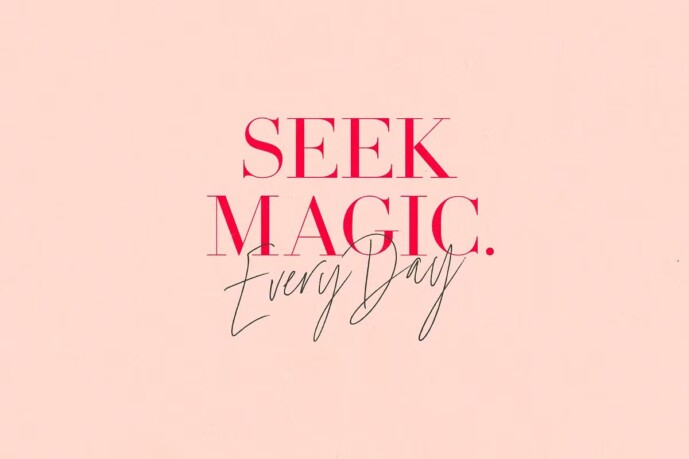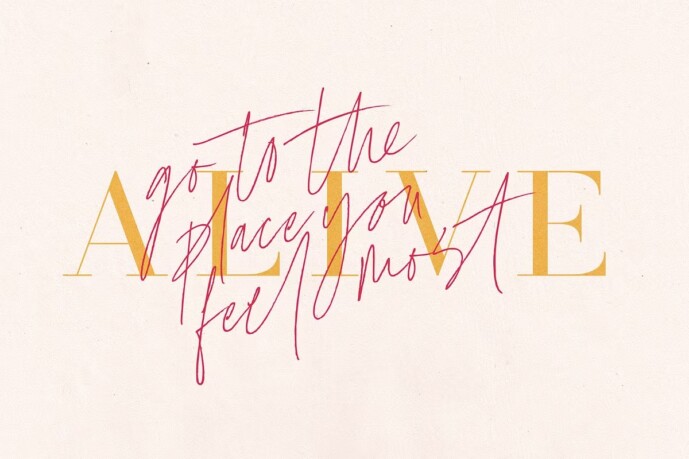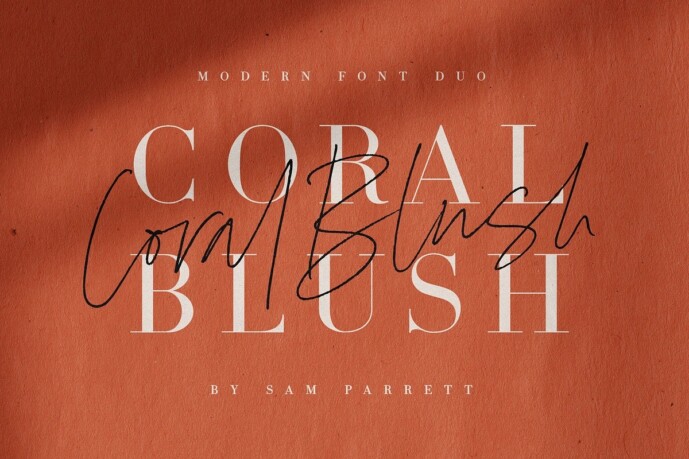
Coral Blush Font Duo
Coral Blush Font Duo, a carefully crafted and perfectly balanced set of elegant serif and realistic script typefaces. Also included are 9 subtle paper textures, allowing you to jump right in and create stunning designs within minutes.